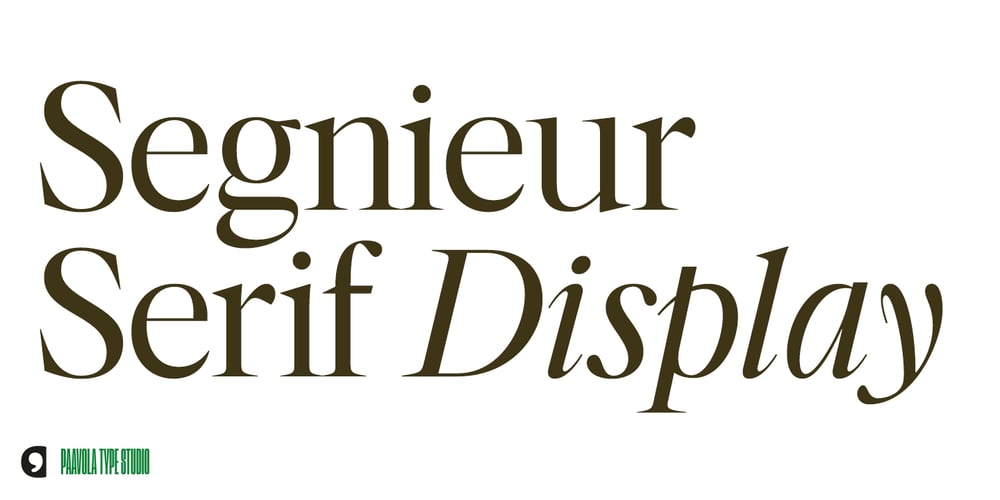
Segnieur Serif Display
Segnieur Serif Display font
Segnieur Serif Display Font Family was designed by Jani Paavola and published by Paavola Type Studio. Segnieur Serif Display contains 10 styles and family package options. Segnieur Serif is a high-contrast serif typeface leaning to the strong dutch typography tradition. Segnieur is family of 5 weights with italics suitable for a wide range of application. Segnieurs’ OpenType features includes variety of ligatures, upright numerals and more. Segnieur supports over 200 latin based languages spoken in 212 different countries.